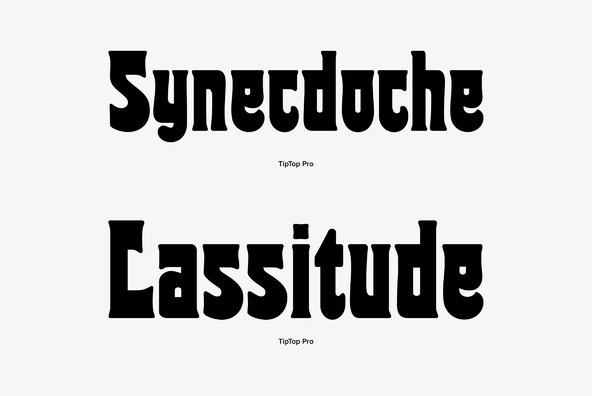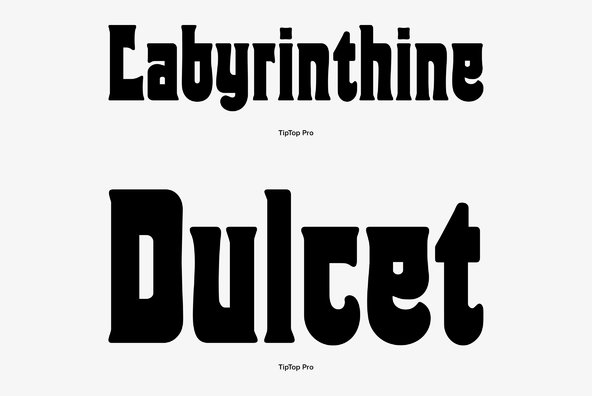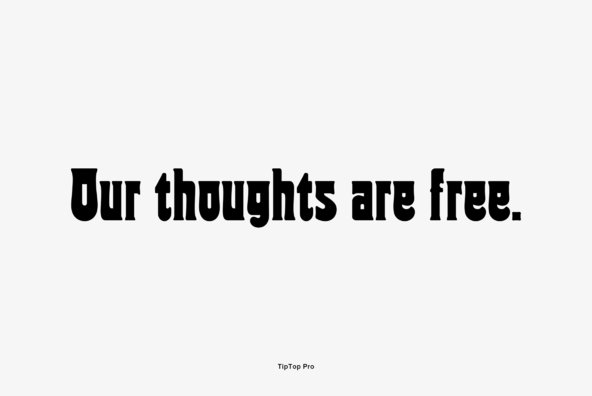
TipTop Pro's origin goes back around 1900 when the font was released by German foundry Julius Klinkhardt in Leipzig. Ralh M. Unger redesigned this beautiful art nouveau typeface, extended its character set besides the East European accent letters even with Cyrillic glyphs and digitally remastered it. TipTop Pro fits perfectly into the series of recently released URW++ art nouveau designs like Edda, Gradl No. 1, Impression, Joga, Ornella etc.